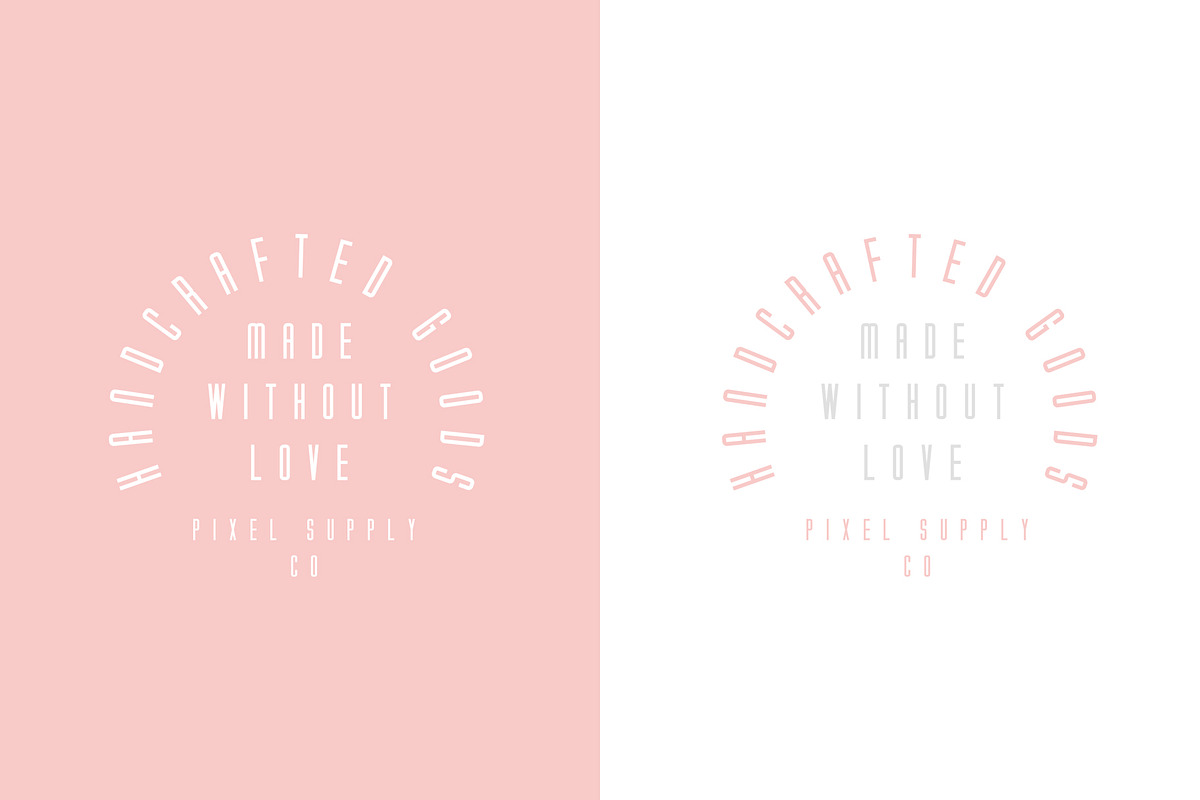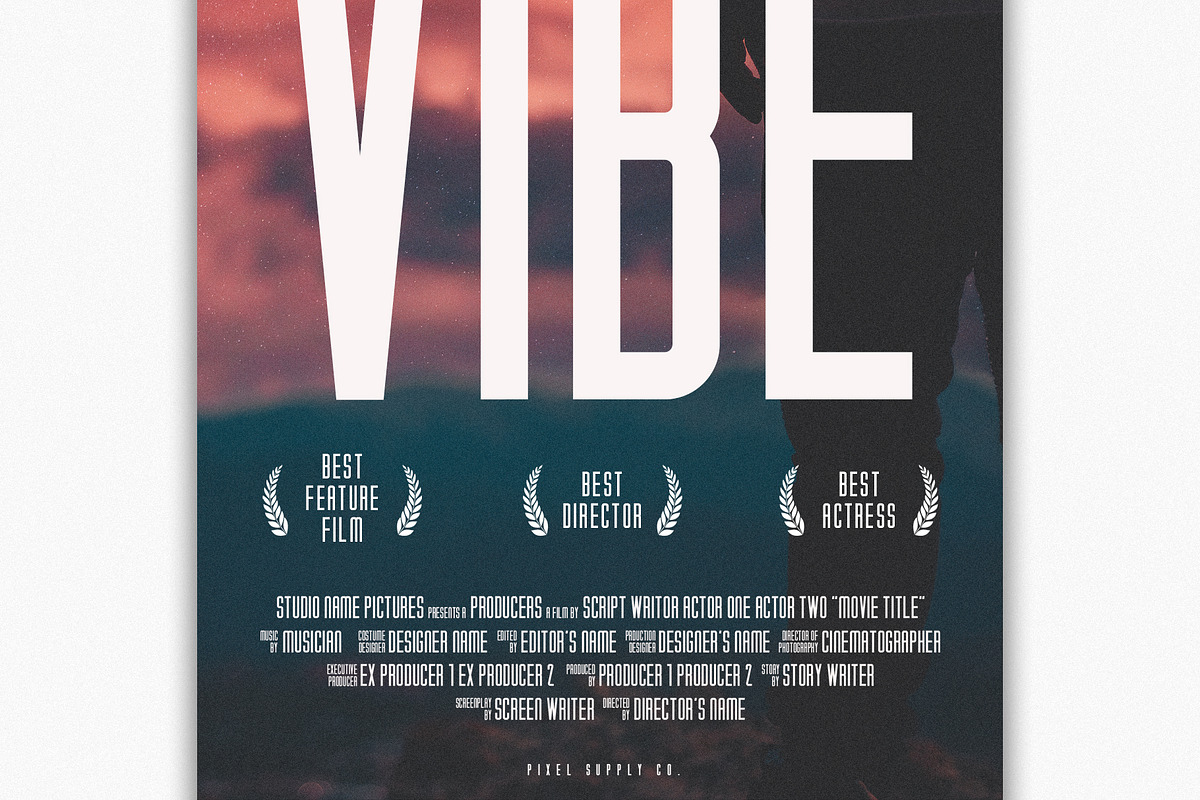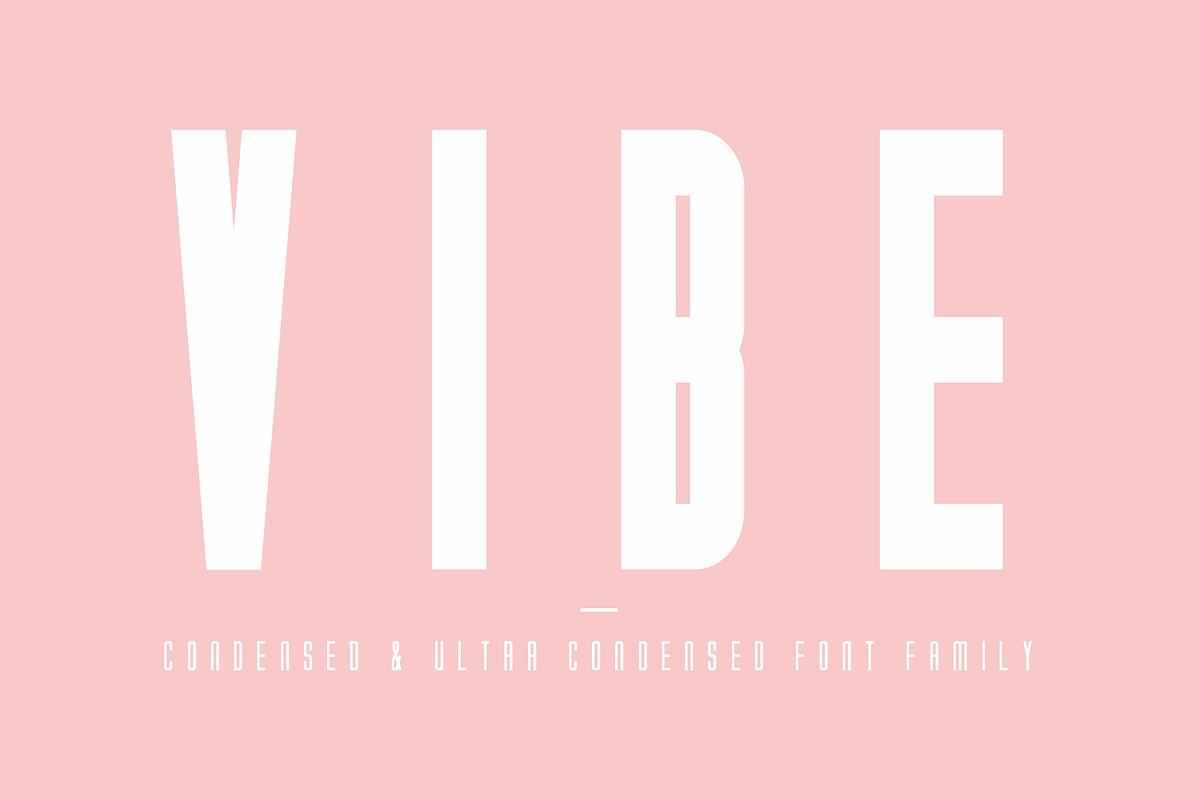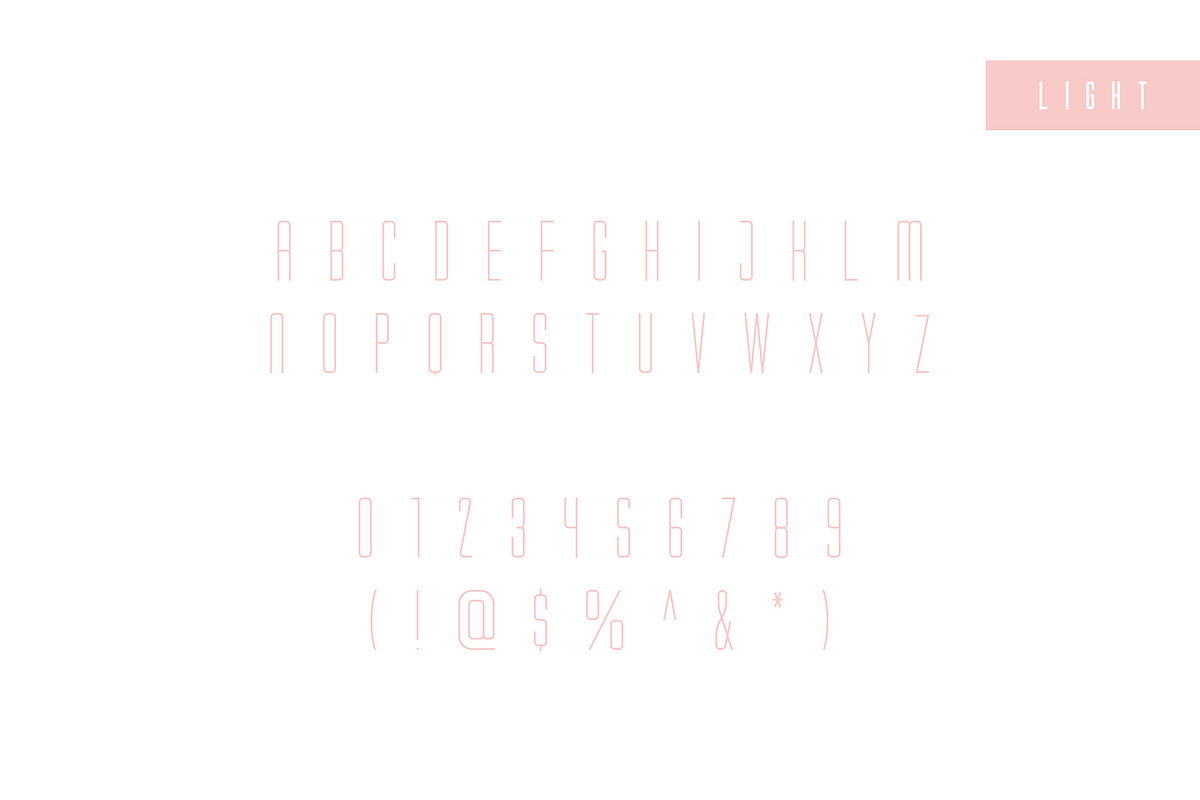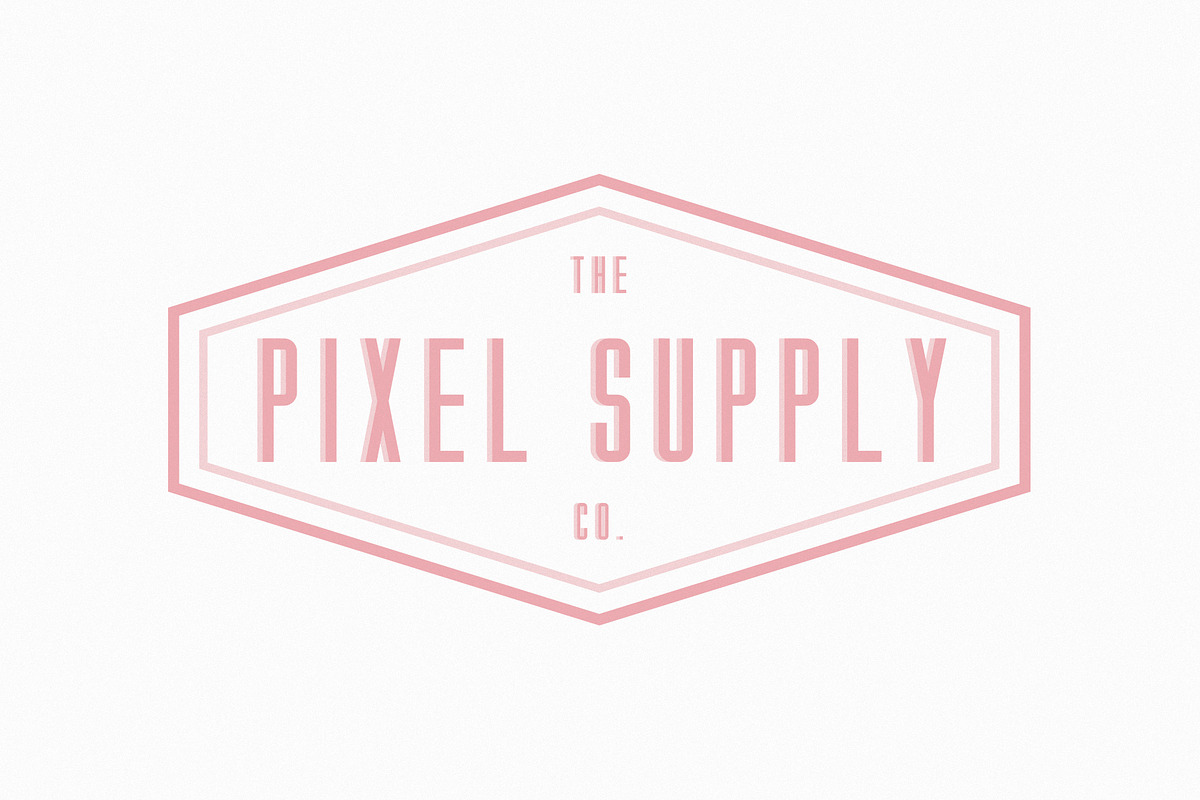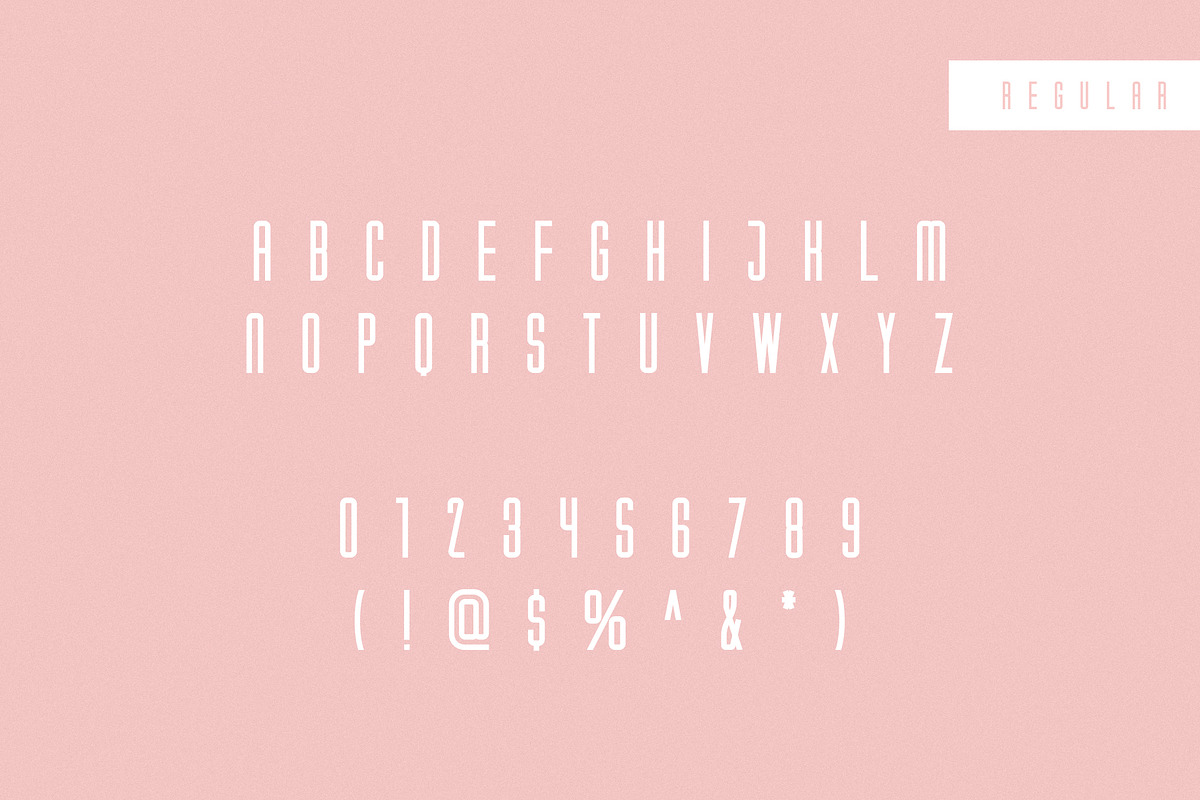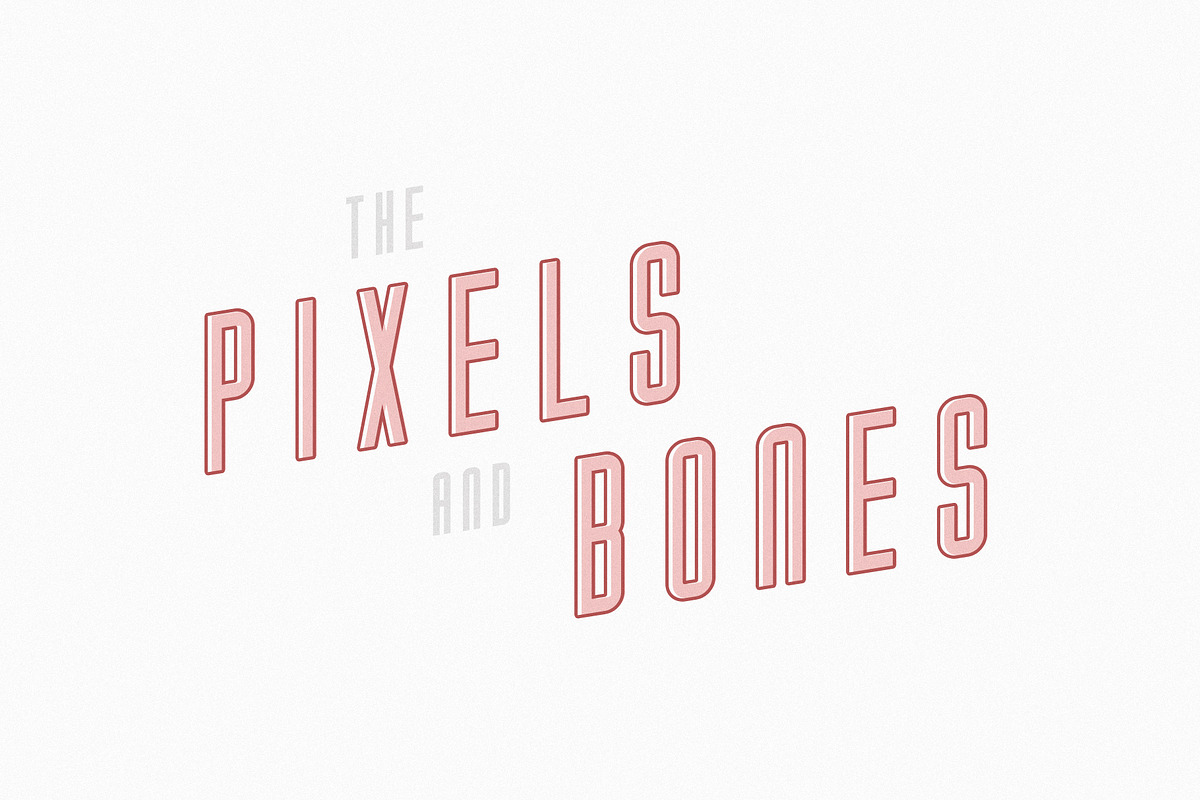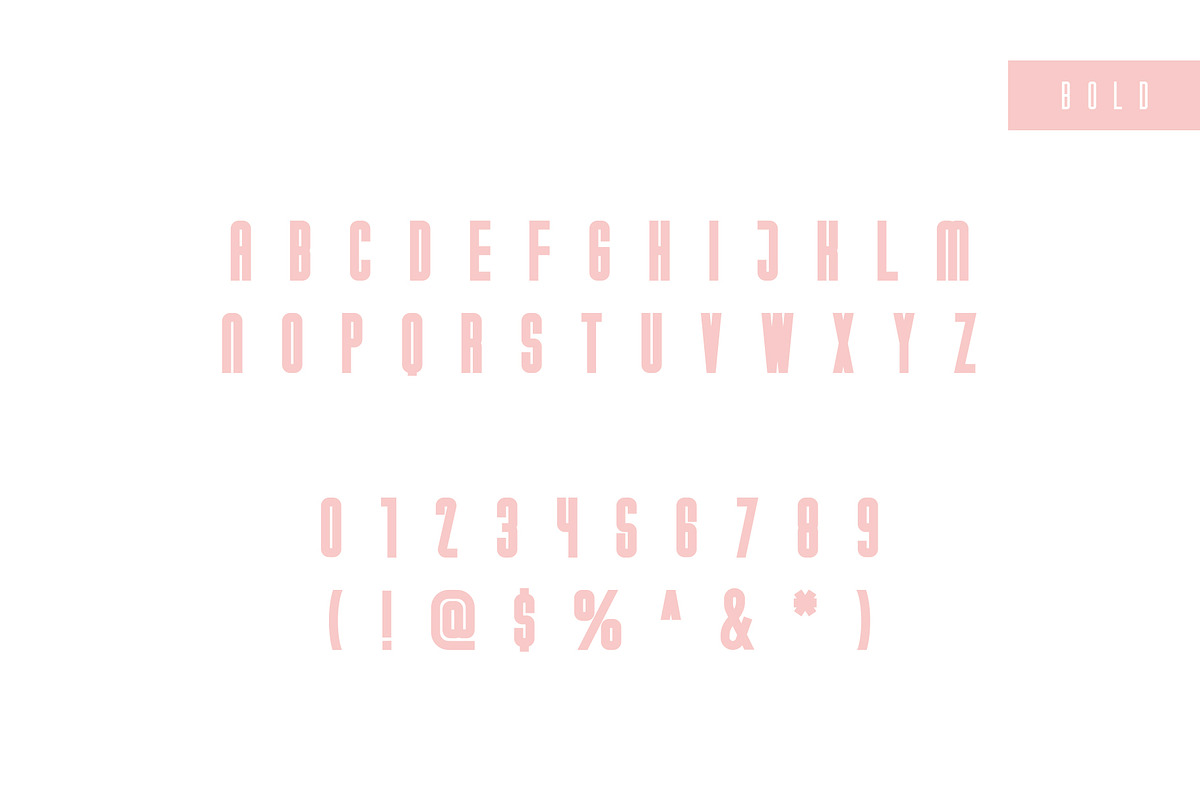
Vibe Condensed Font Family
VIBE is a classic, condensed and ultra condensed font family inspired by old Hollywood, 60s advertising and sign-painting. Exaggerated line lengths make it perfect for movie posters, art pieces and anywhere you might need to squeeze some more letters into!
3 weights (Light, Regular & Bold + Italics)
Numbers, punctuation & symbols